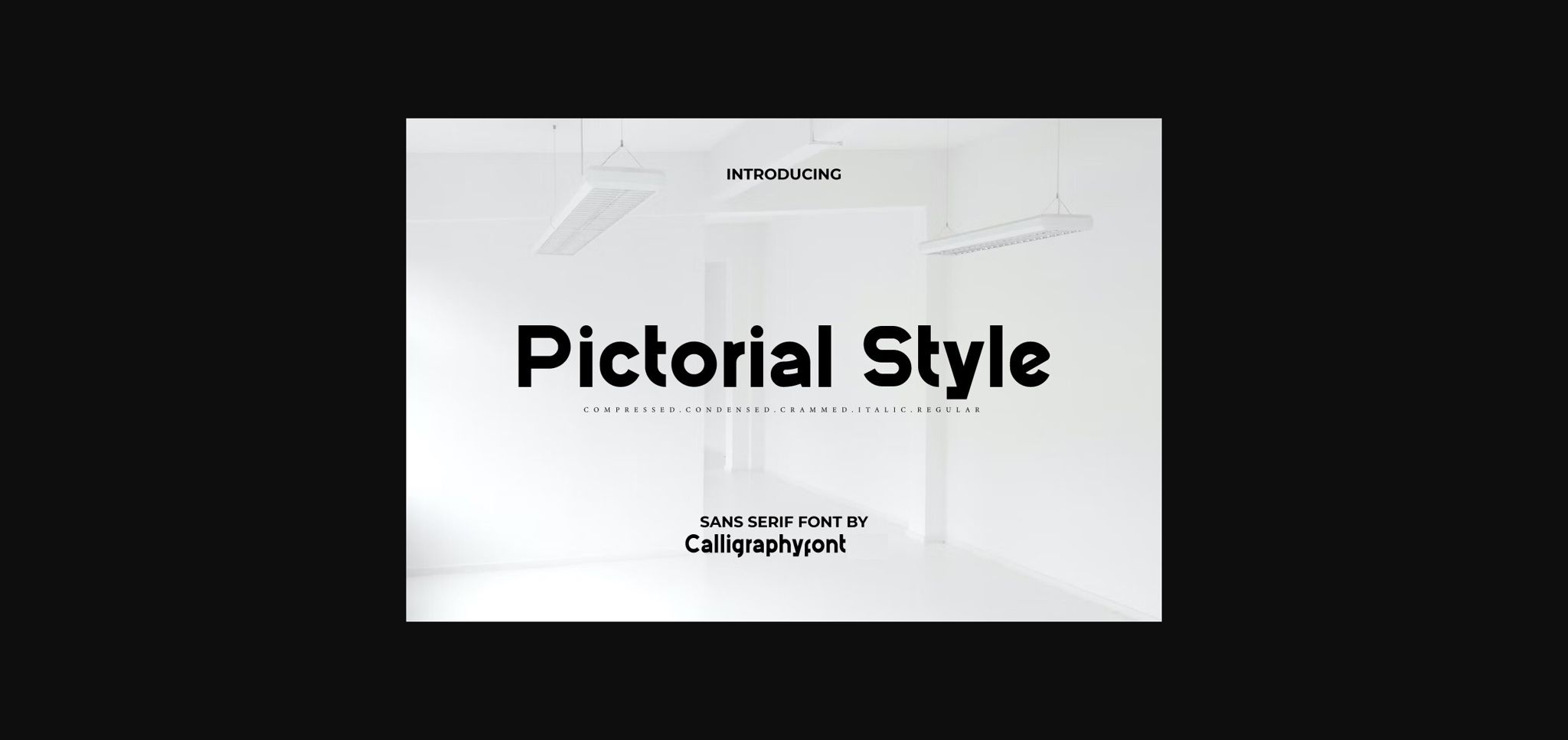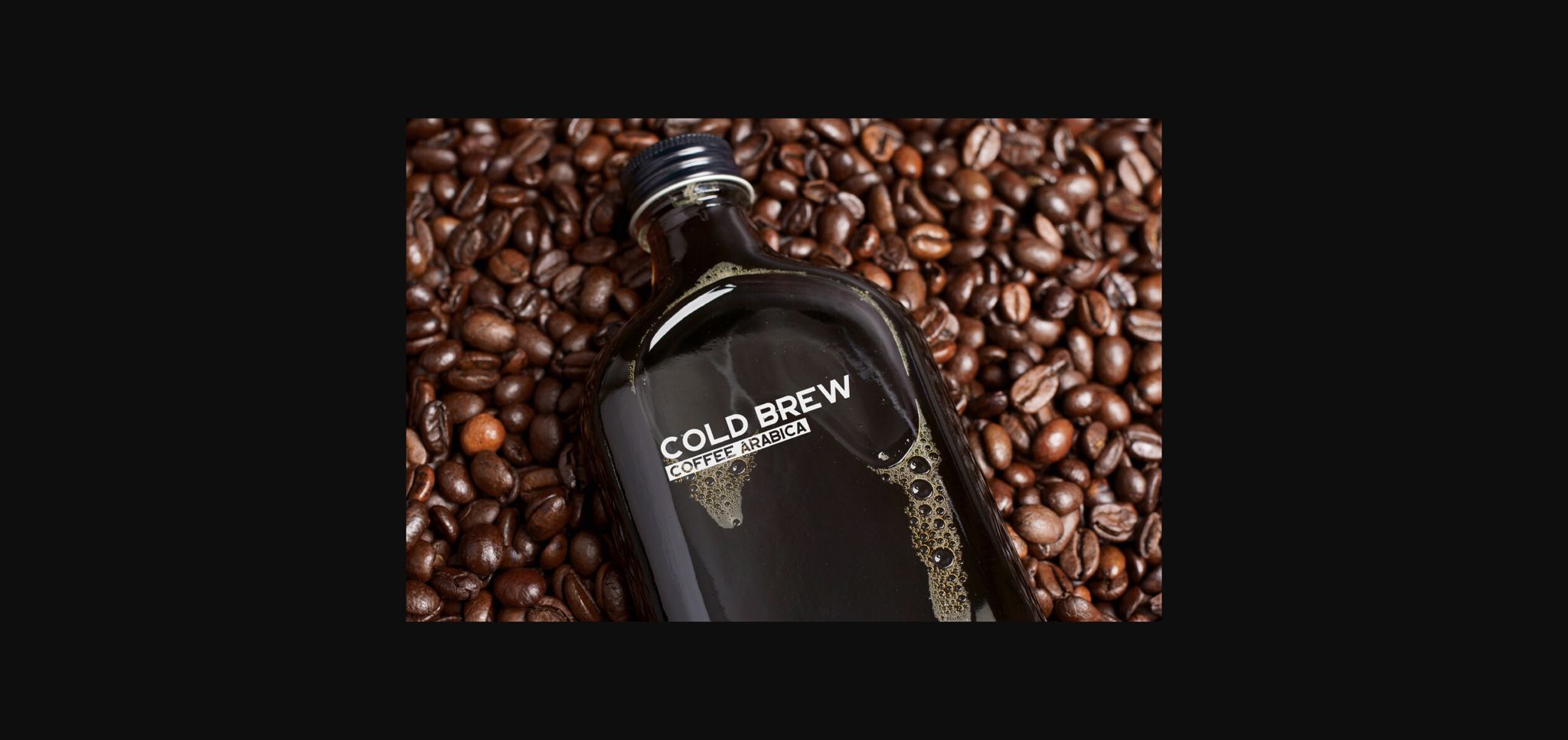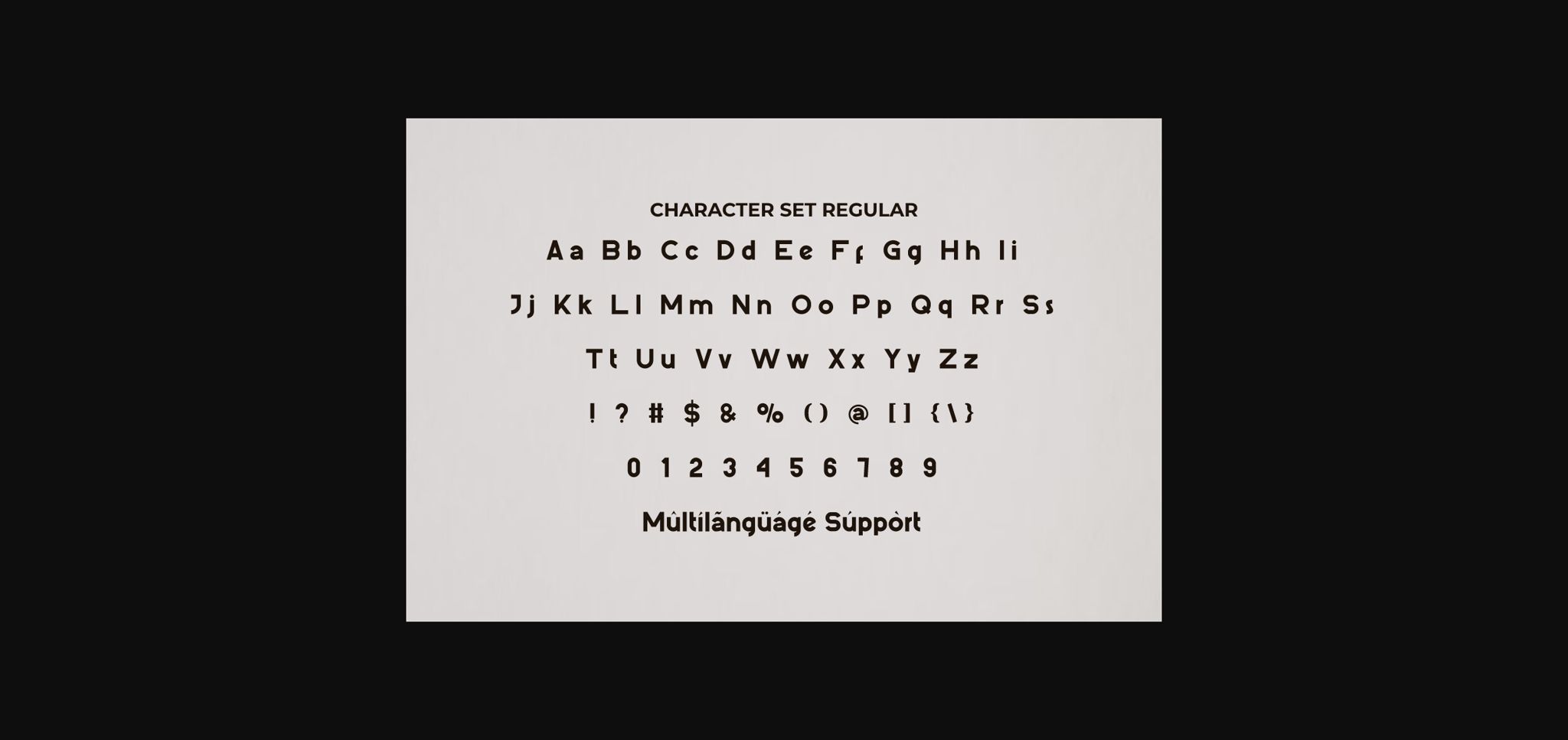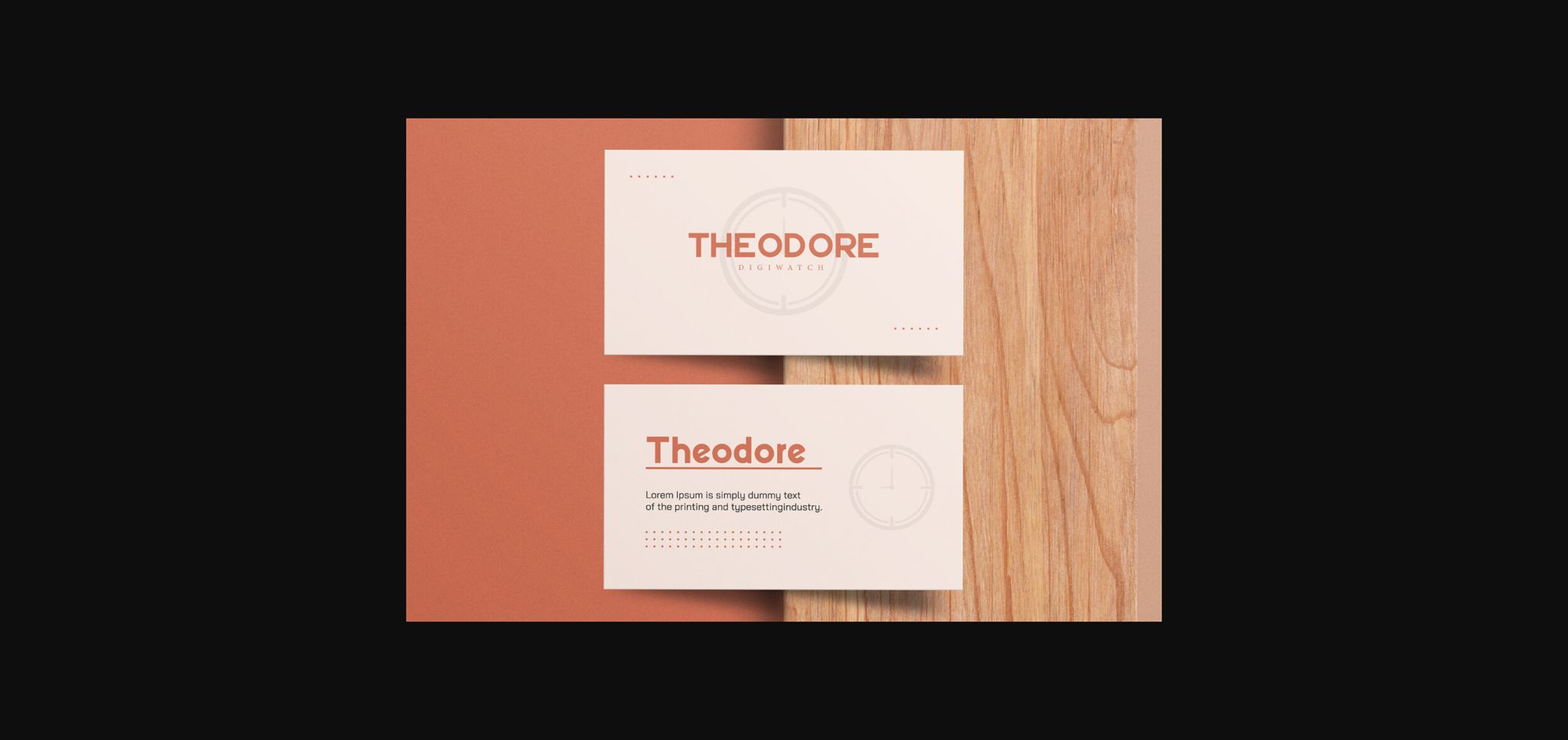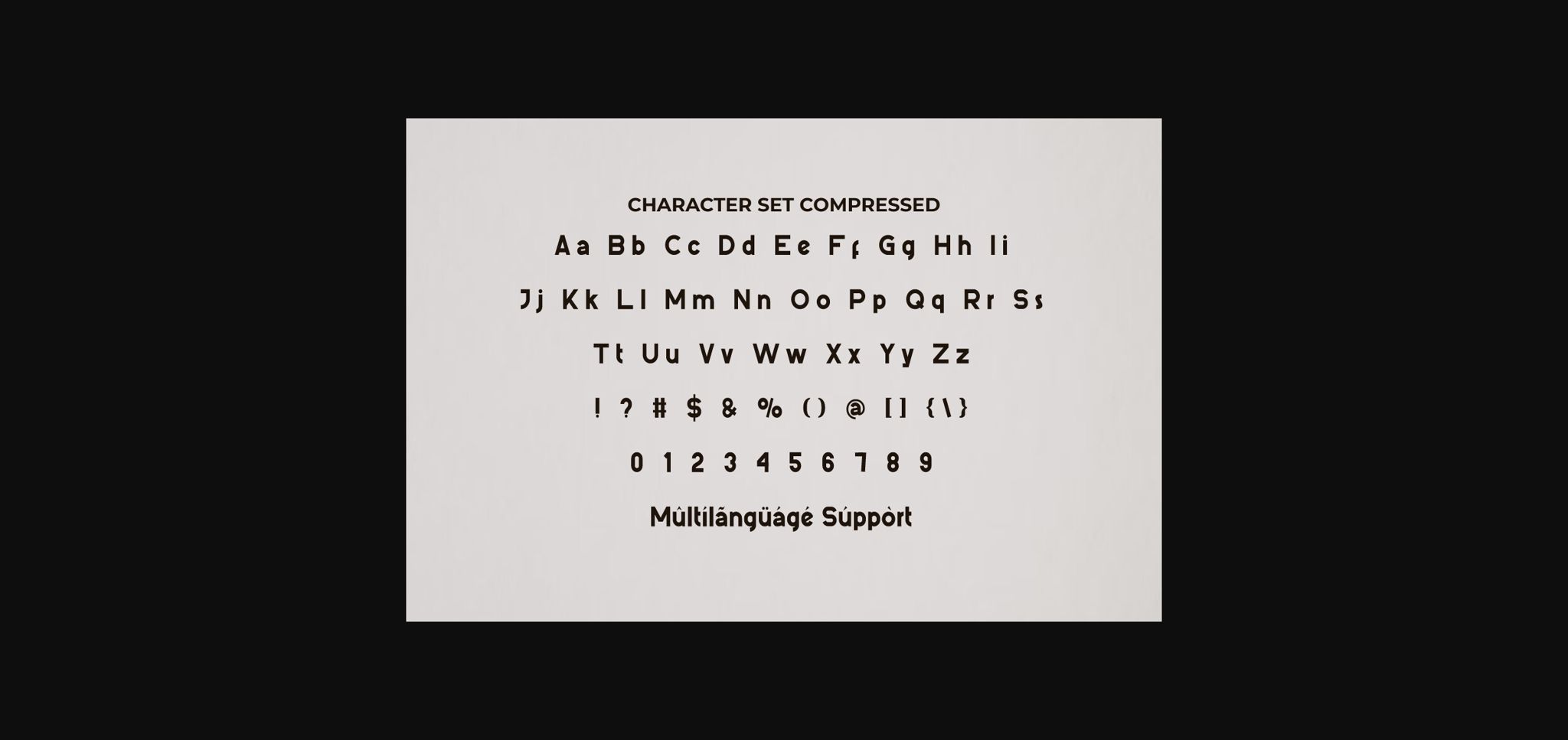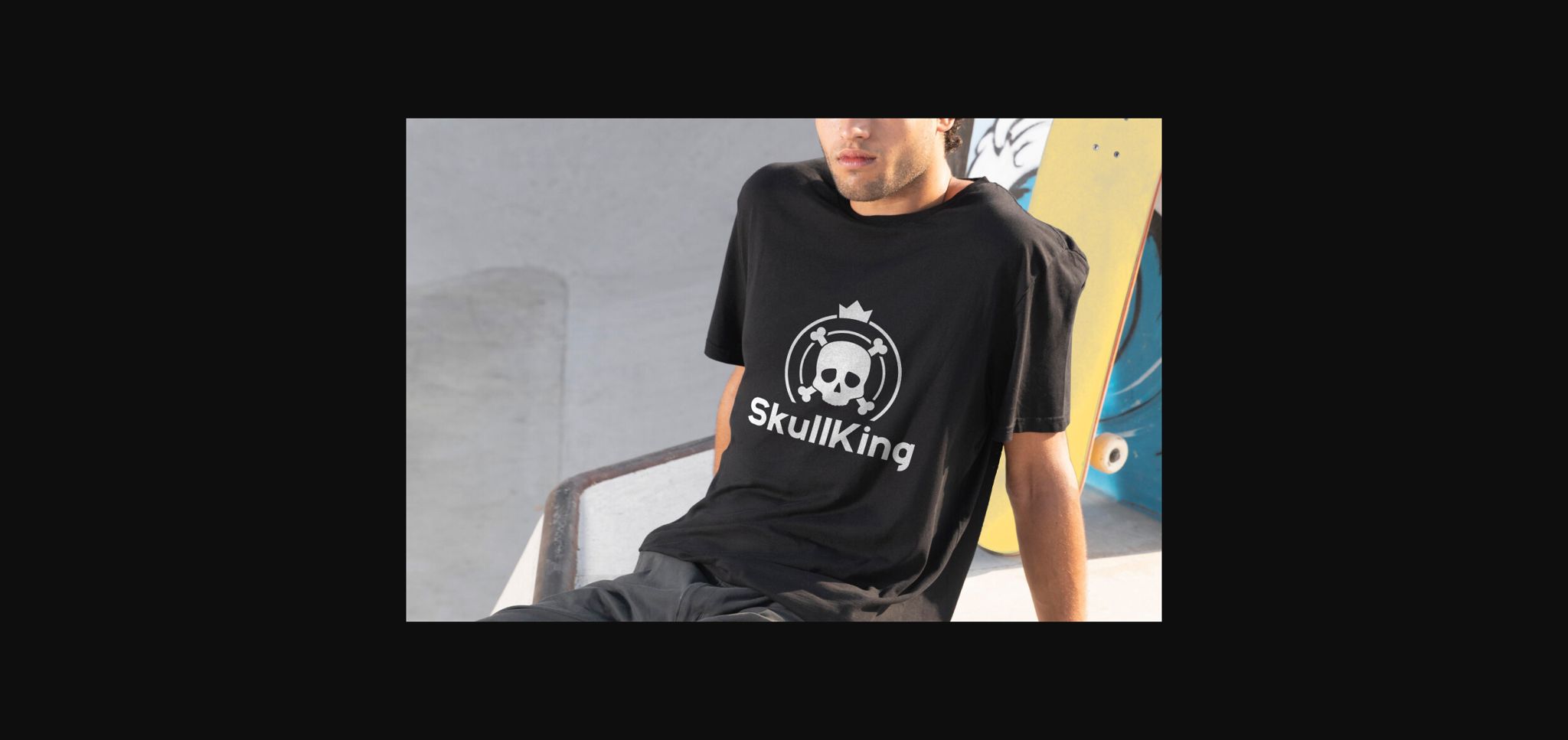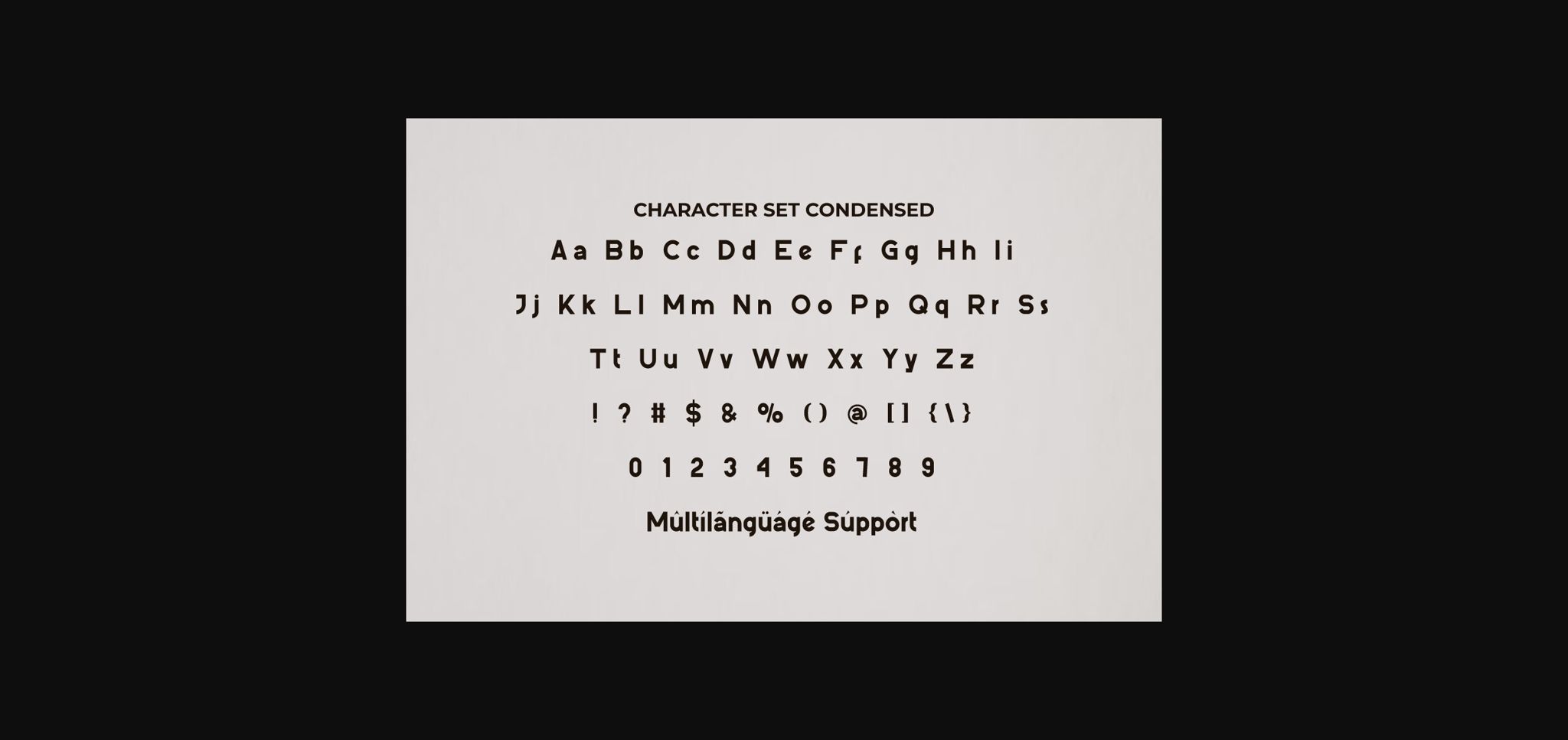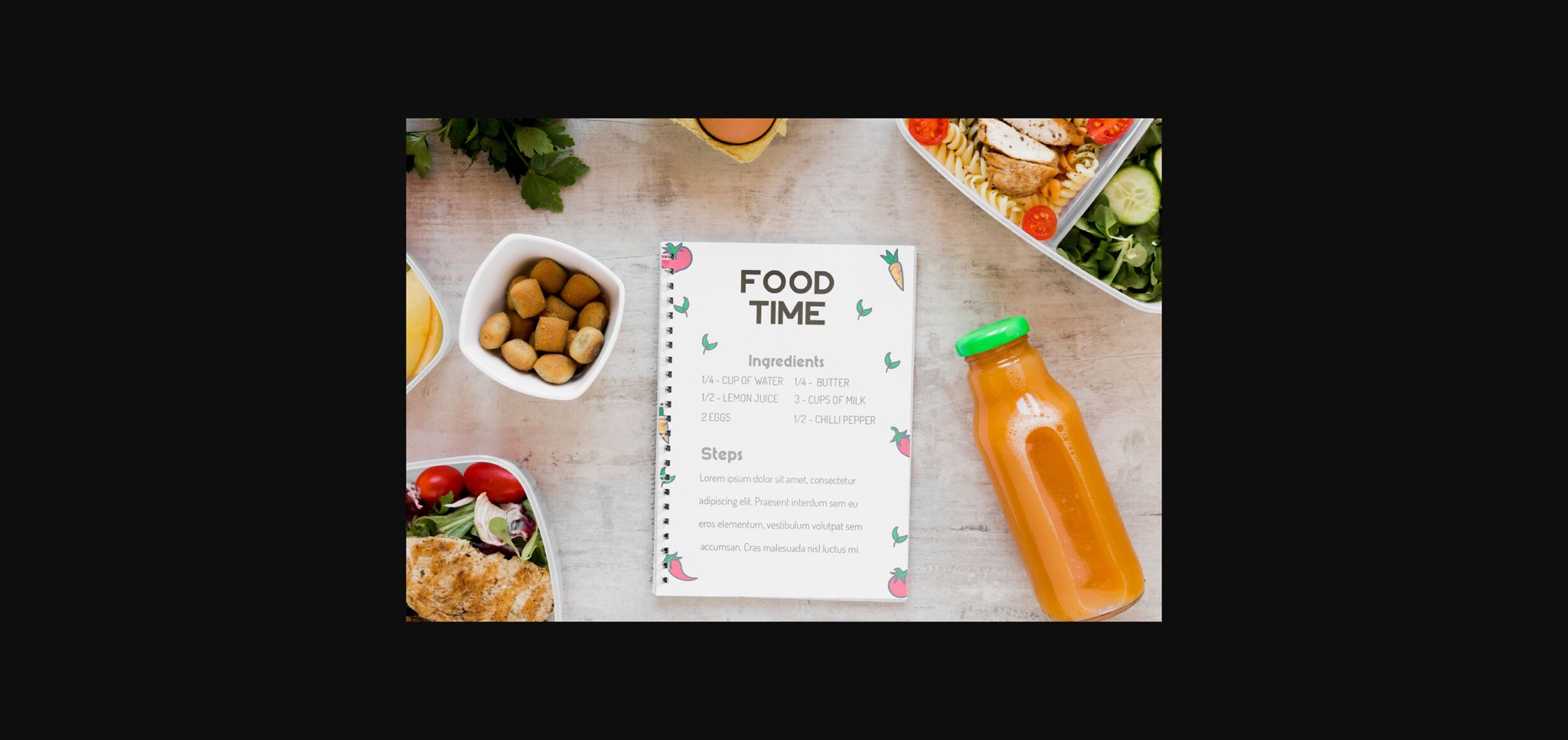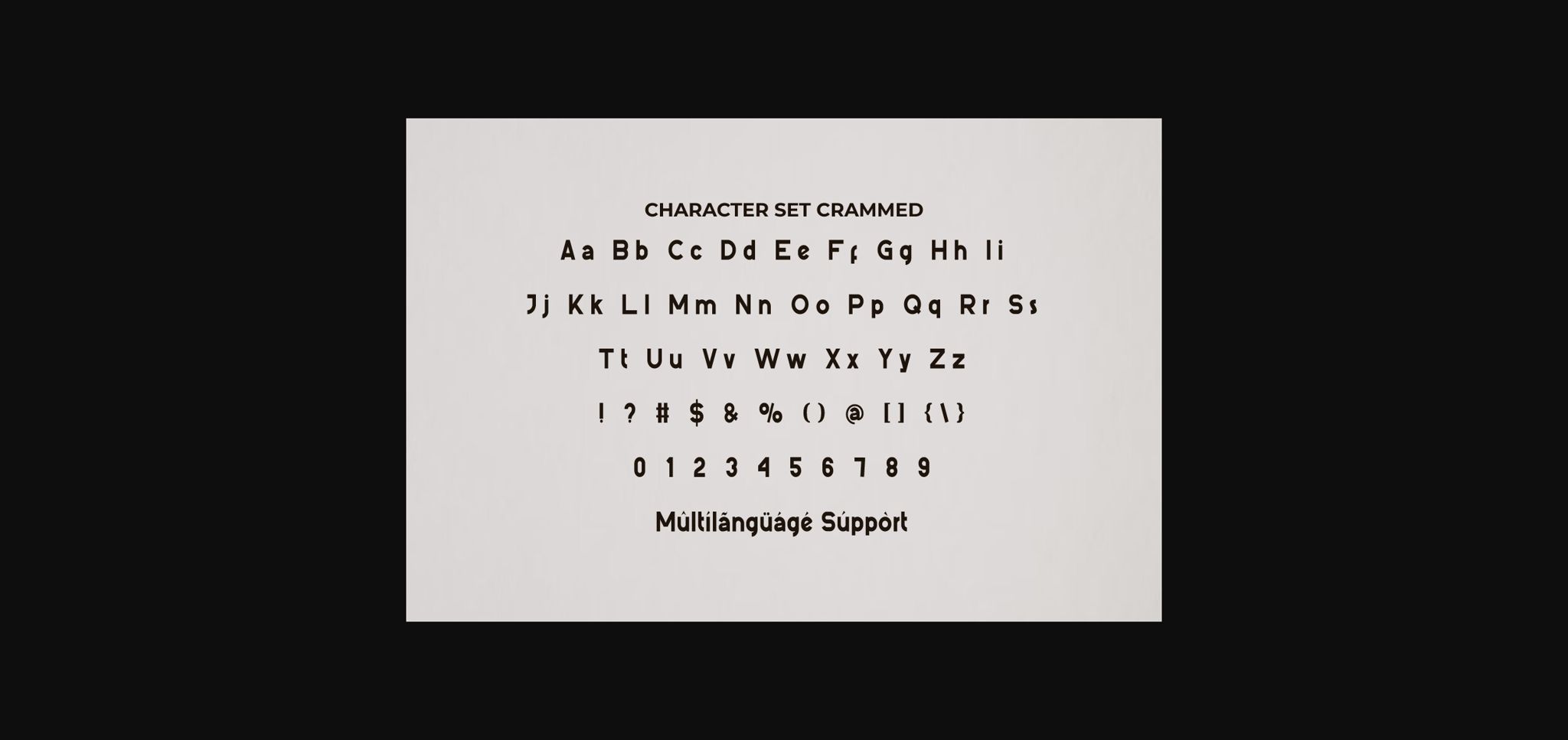
Pictorial Style Font
About Pictorial Style Font
Pictorial Style Font is a unique sans serif font with five different styles offered. This font can enhance various creative projects, such as body text, brochures, business cards, embossed designs, headers, labels, screen prints, stickers, watermarks, and any project that requires a bold look.